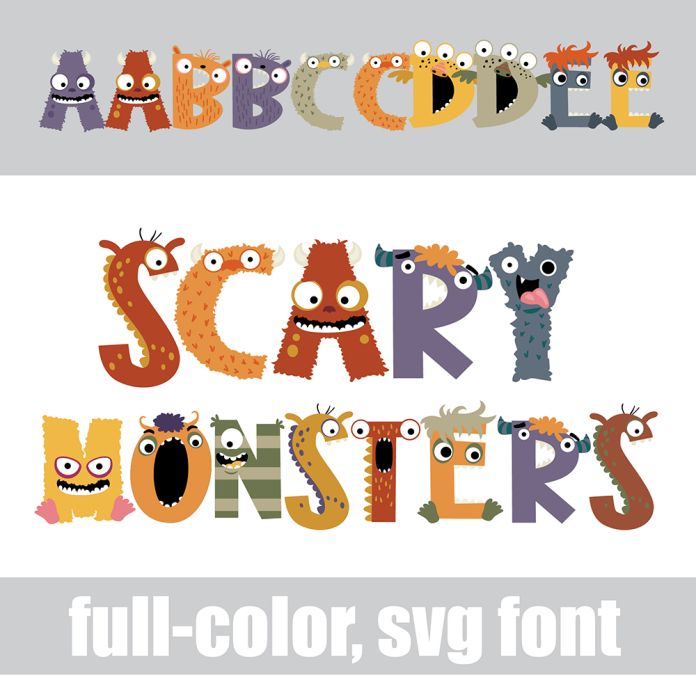
This full-color font features monsters in a subdued, earthy color palette. There is an alt version you can access through your system's character map that contains additional colors of all the letters. This font works best for titles, displays, posters and more. Please note color fonts will show as black in non compatible programs. This font type is compatible with Silhouette Studio.